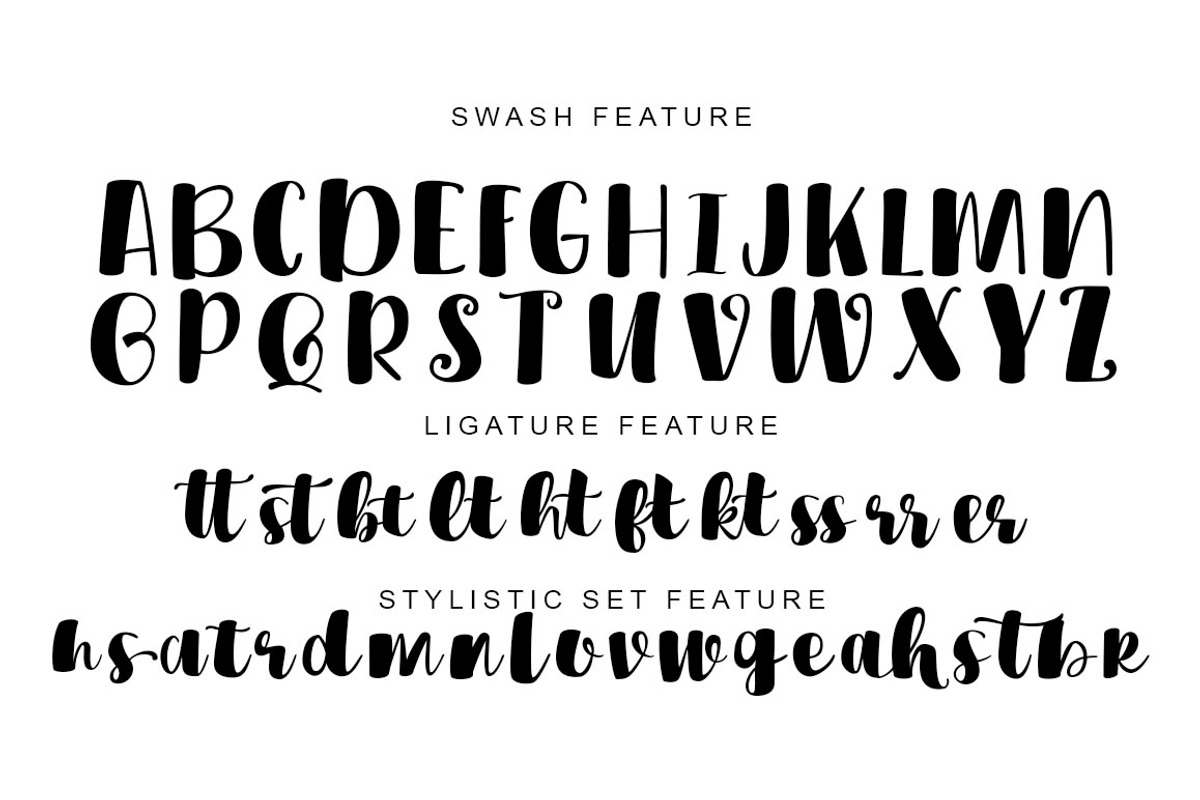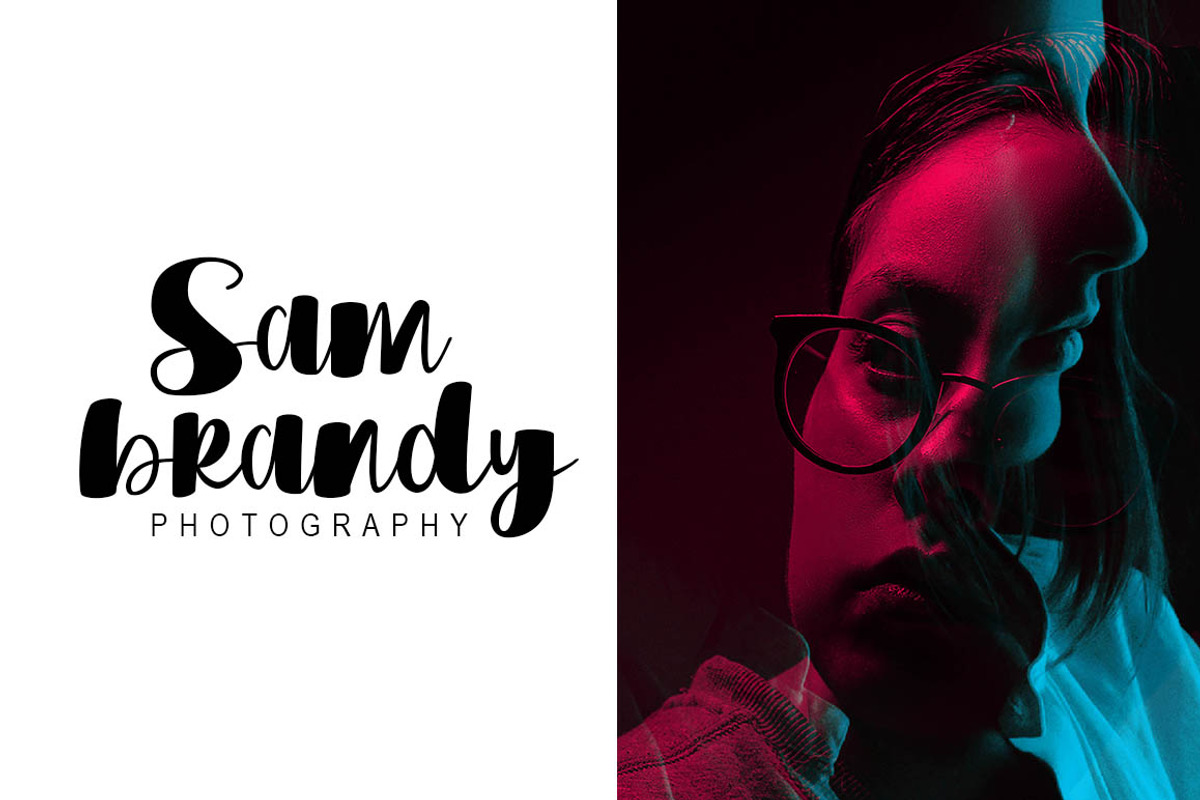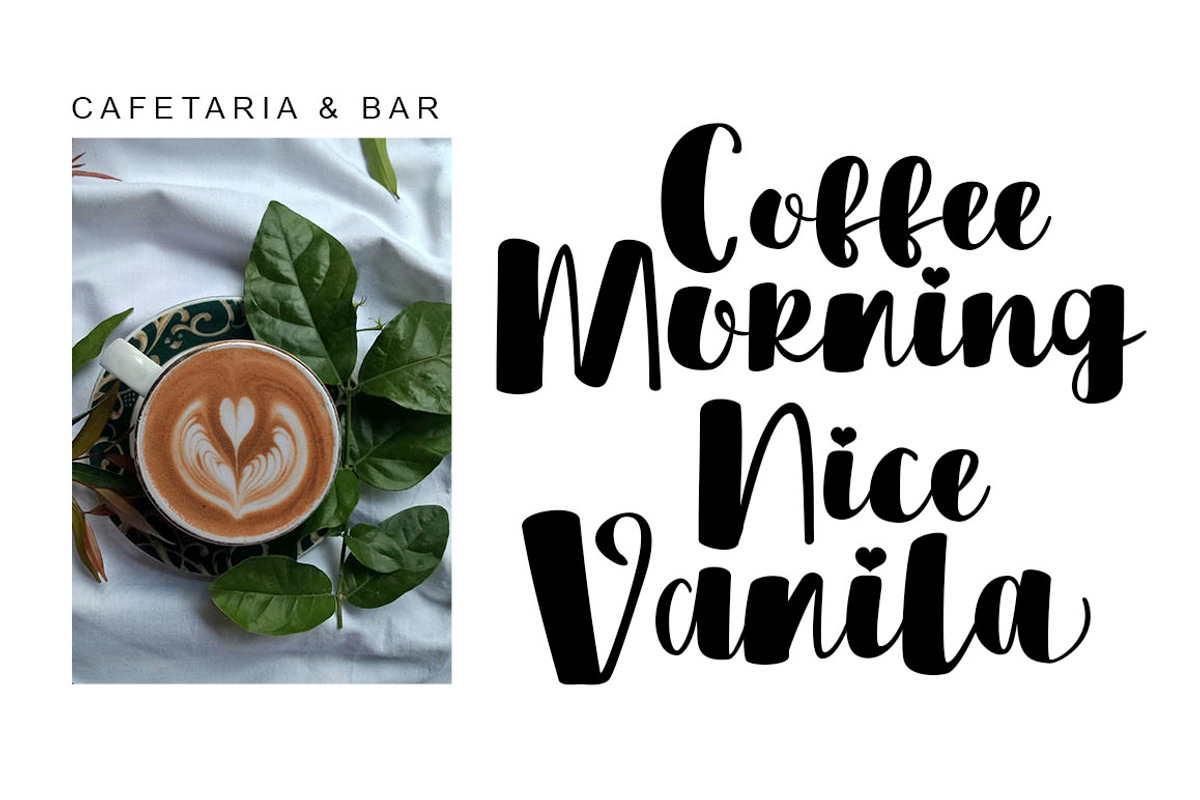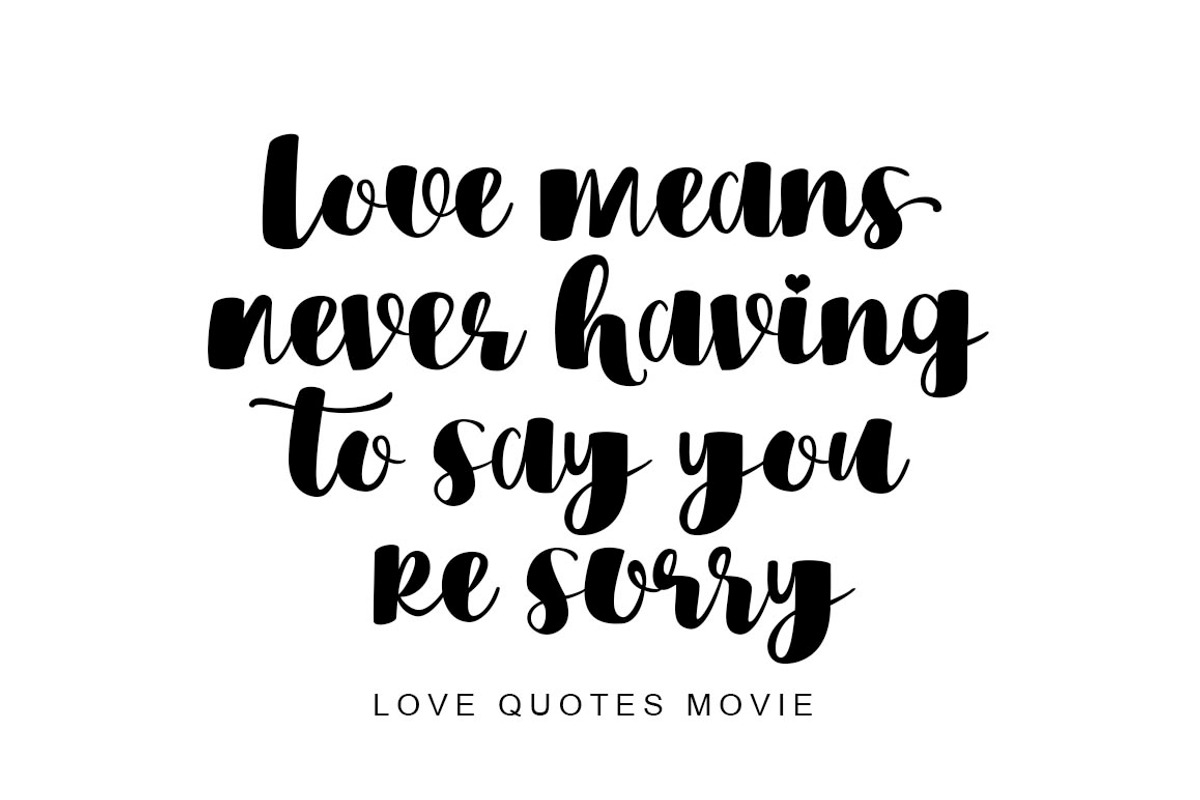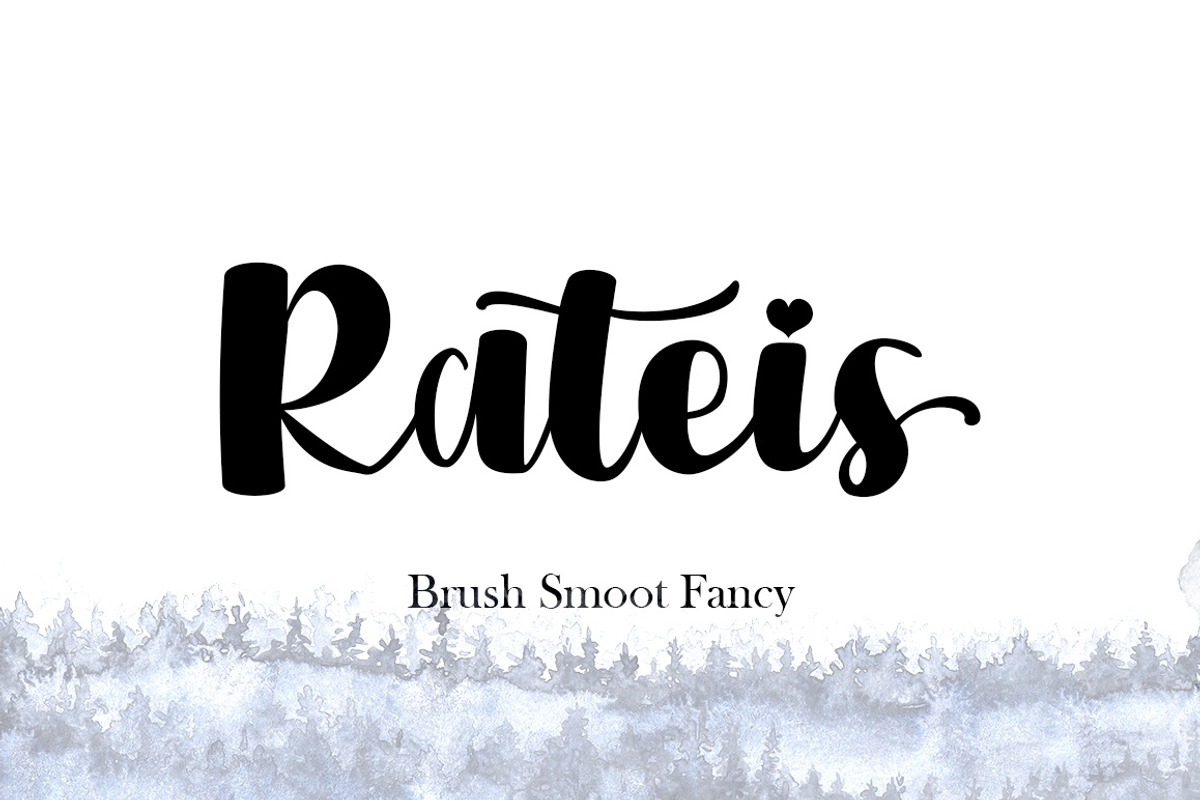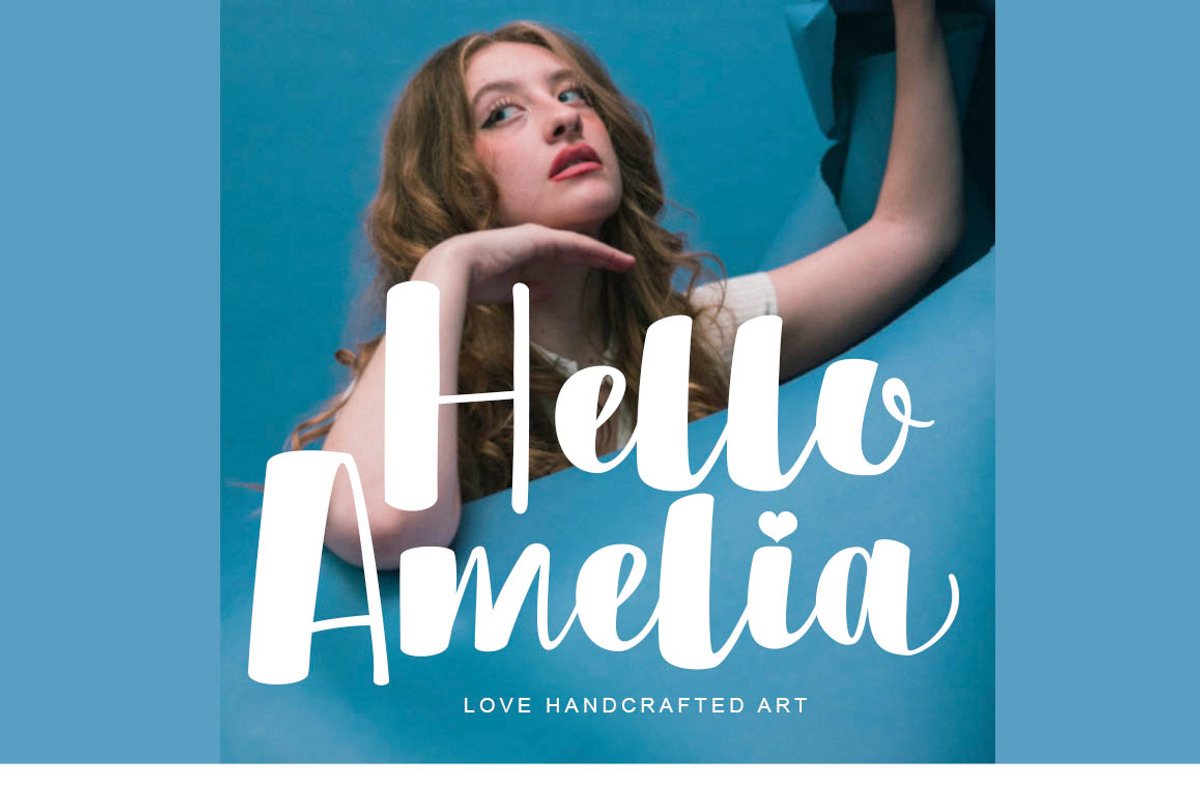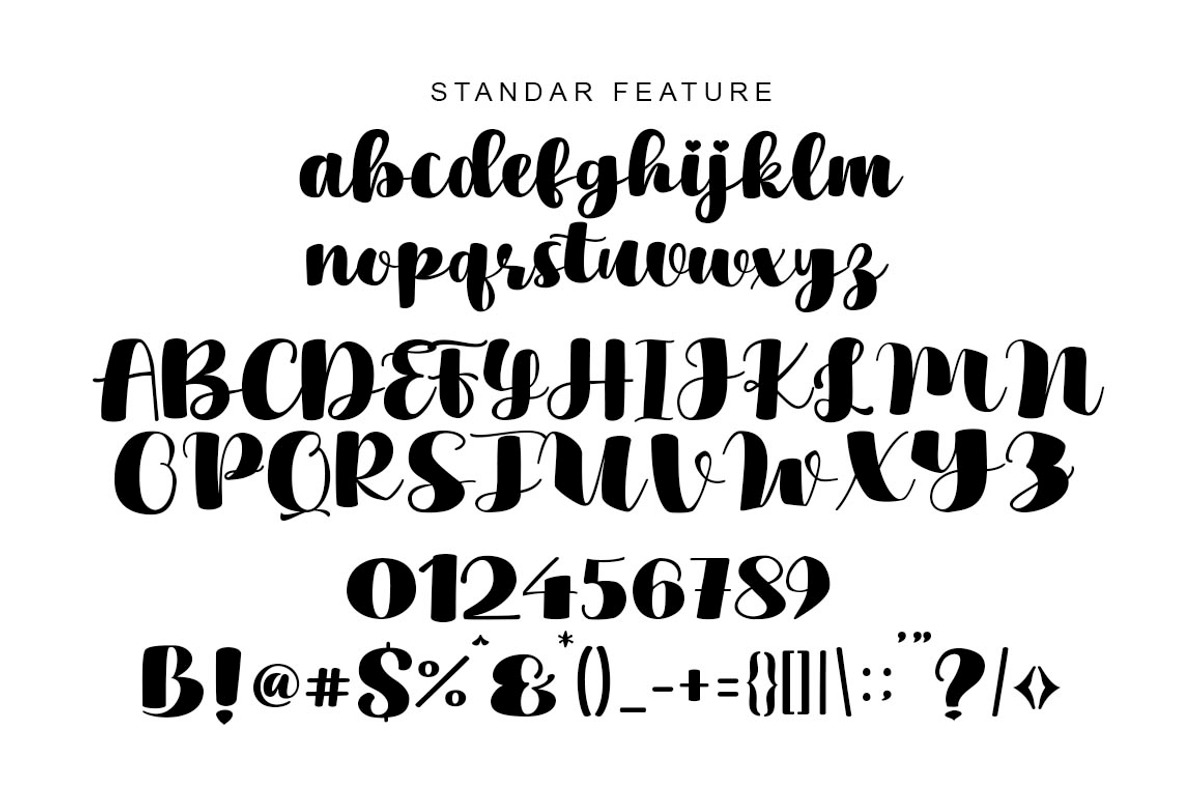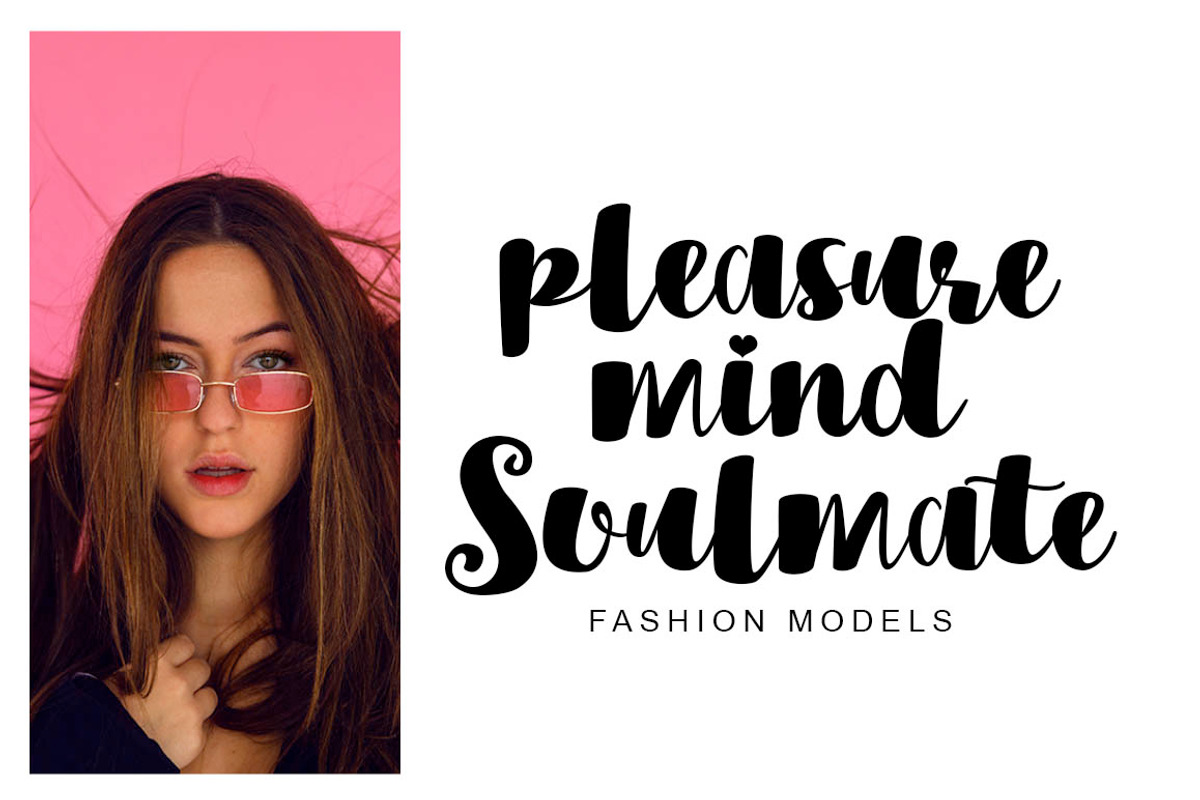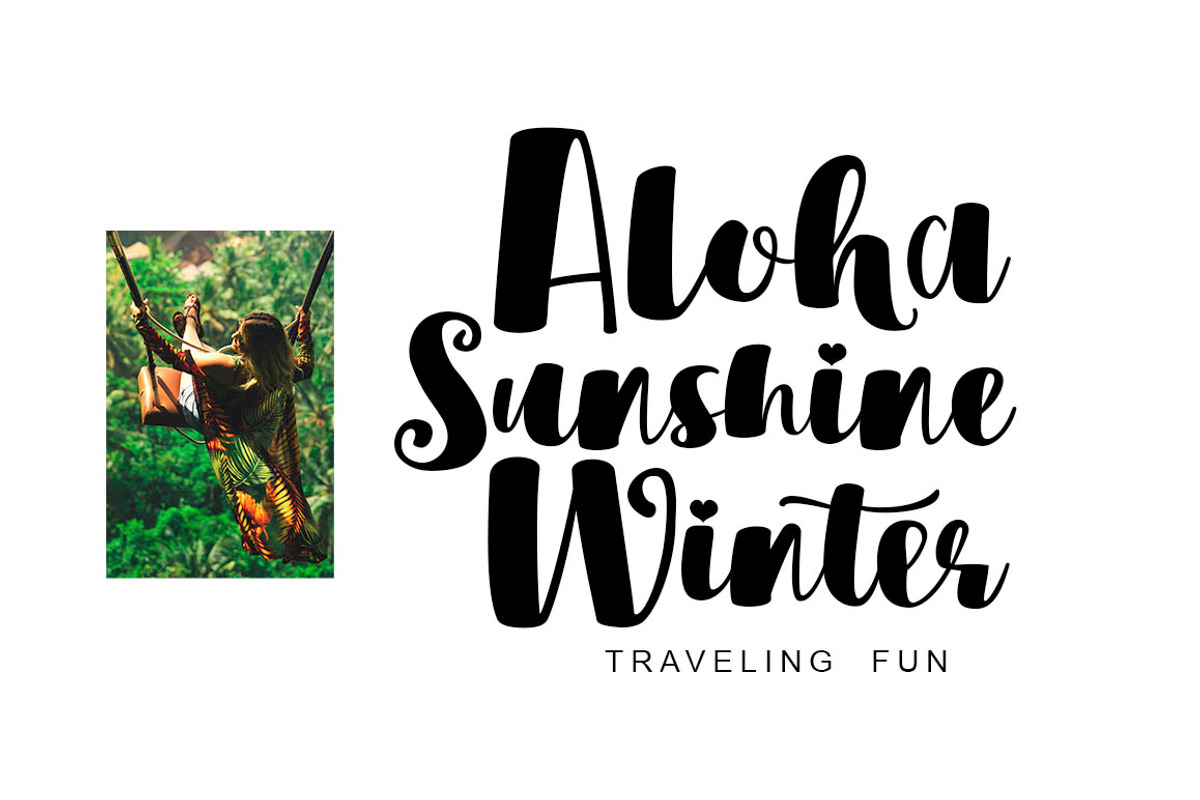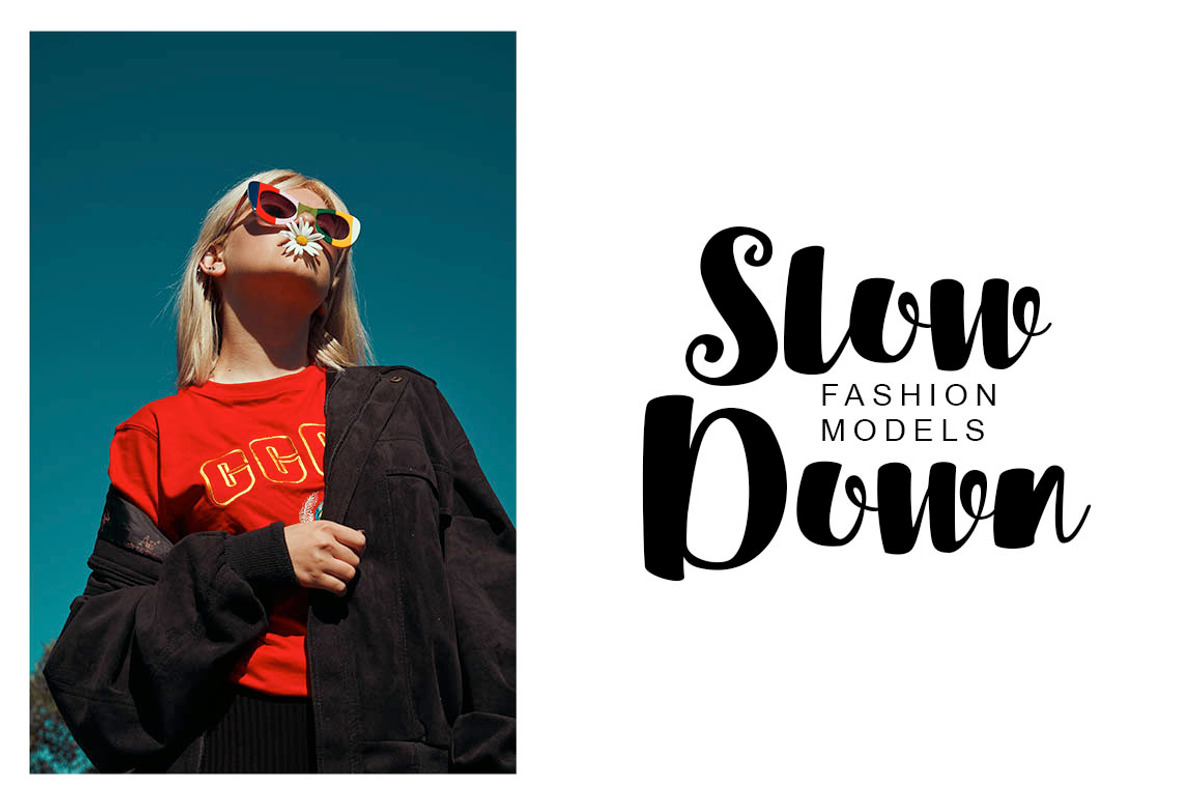
Rateis Script
Introducing Rateis, Fancy, handwritten typography, modern calligraphy script, which combines classic style with modern style calligraphy, make this a collection in your font library
Get OpenType features featuring Stylistic Alternatives, Contextual Alternatives, multiple characters that let you mix and match letter pairs to suit your design. To access alternative glyphs, you need a program that supports OpenType features such as Adobe Illustrator CS and Adobe InDesign, Corel Draw, Microsoft Word .